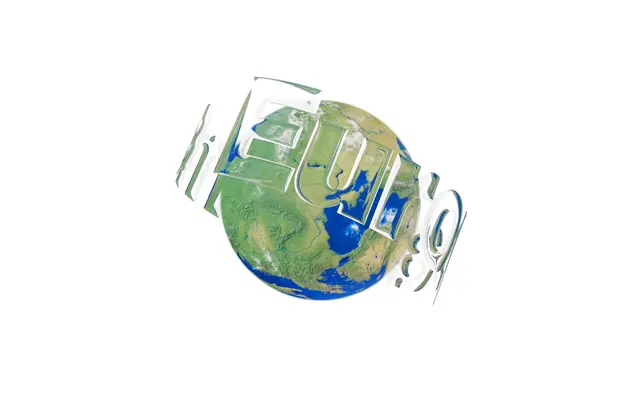
Europa Prima specimen from Production Type
A multilingual humanist sans from Production Type covering Latin, Greek and Cyrillic across six weights with matching italics.
Six weights from ExtraLight to Black, each with a corresponding italic, give the family range across both text and display settings. Latin, Greek and Cyrillic support positions it for pan-European publishing, institutional and identity work. The specimen leans into a connected, intercontinental European theme, suggesting an intended audience in infrastructure, travel and technology sectors.
The forms show warmth and optical refinement consistent with humanist sans design, with a wide weight range from ExtraLight to Black and matching italics suited to both text and display use.